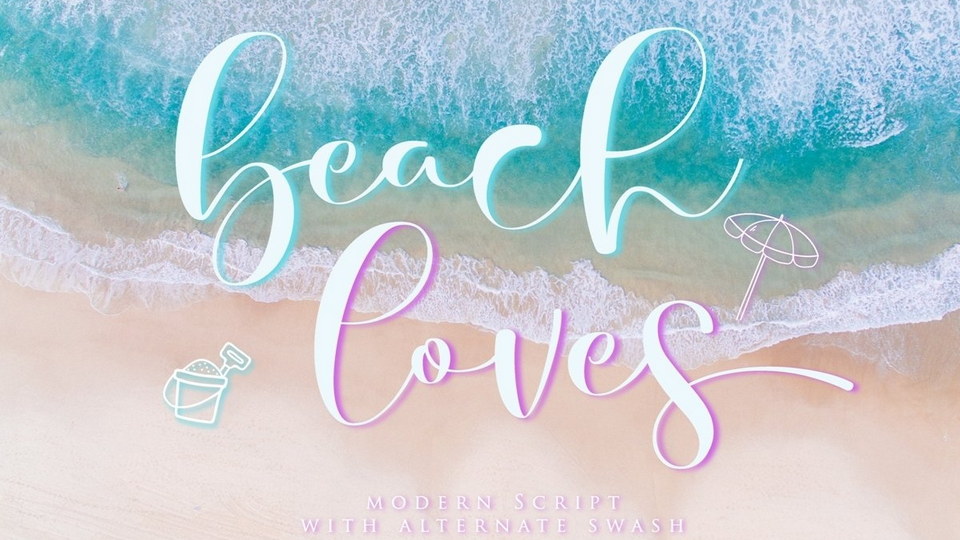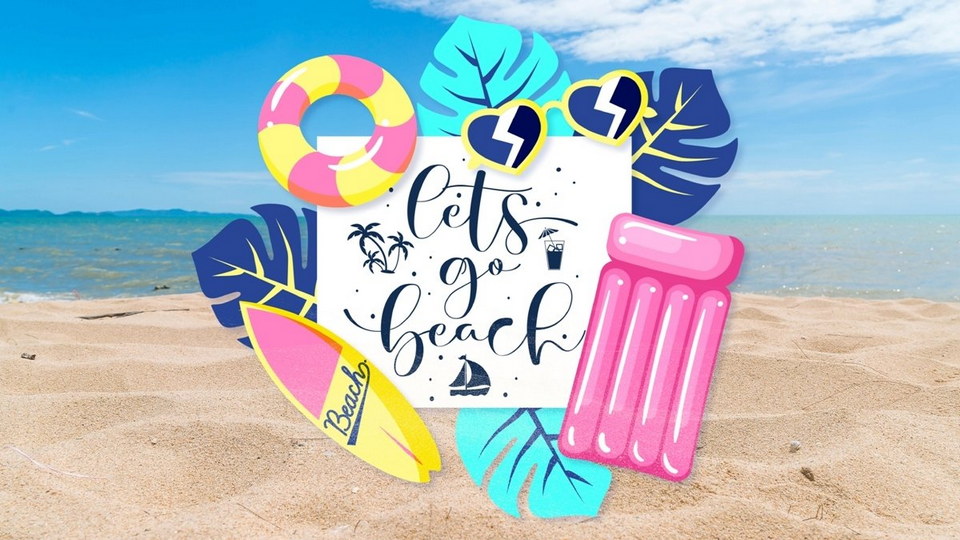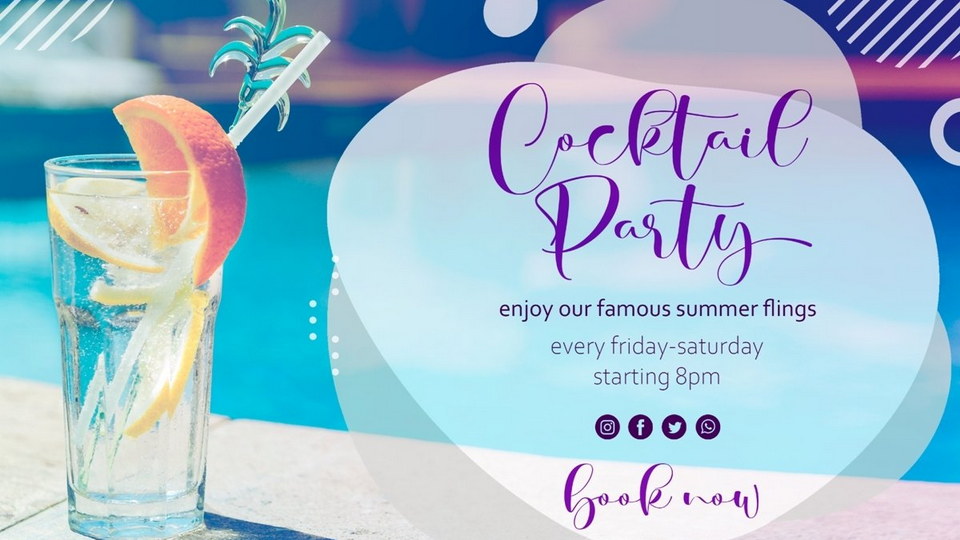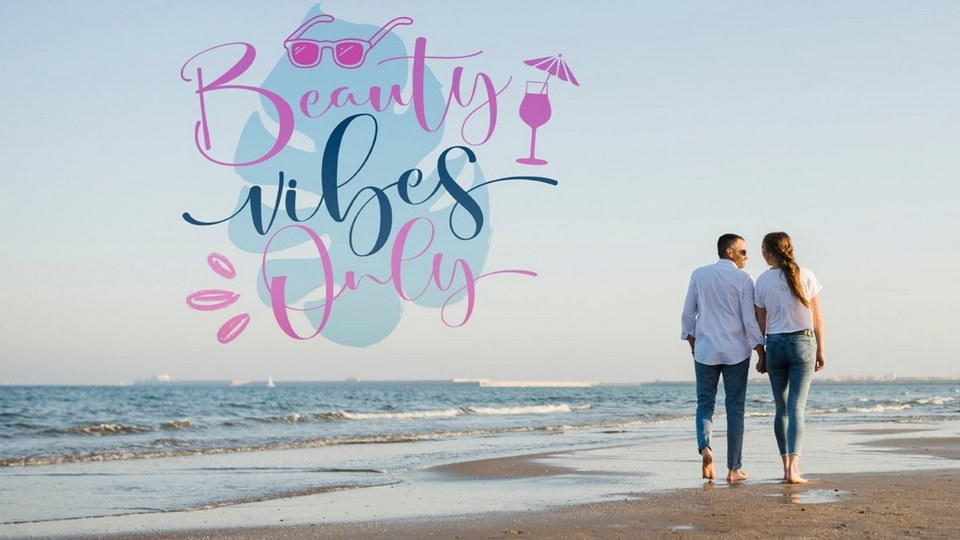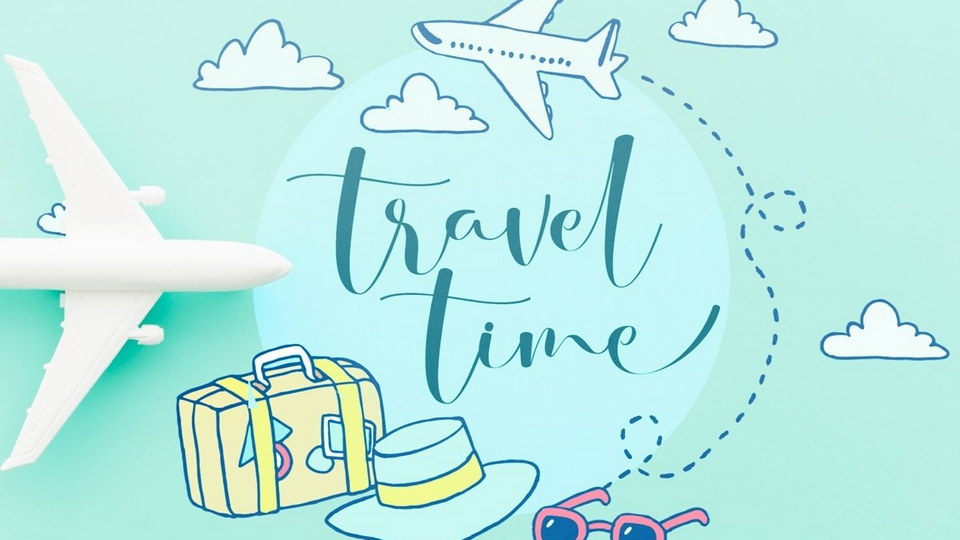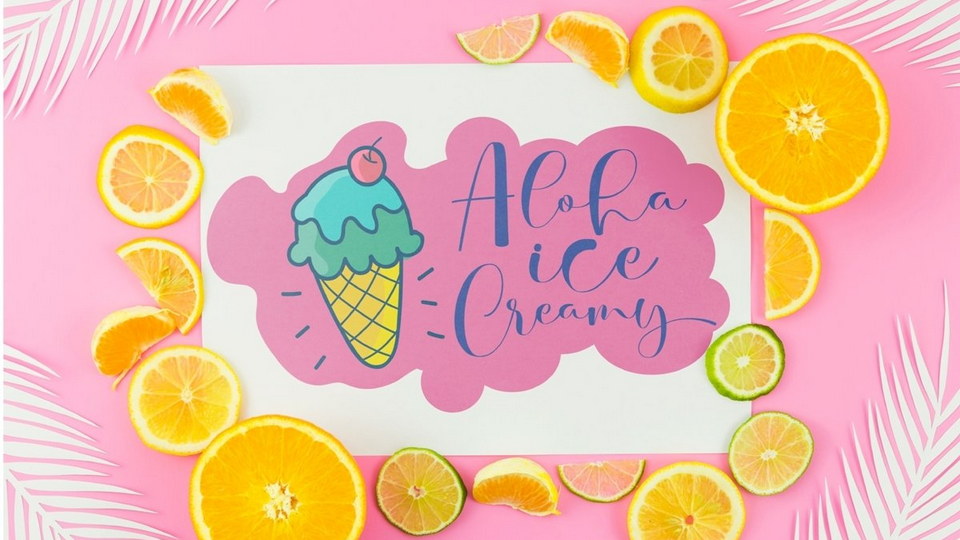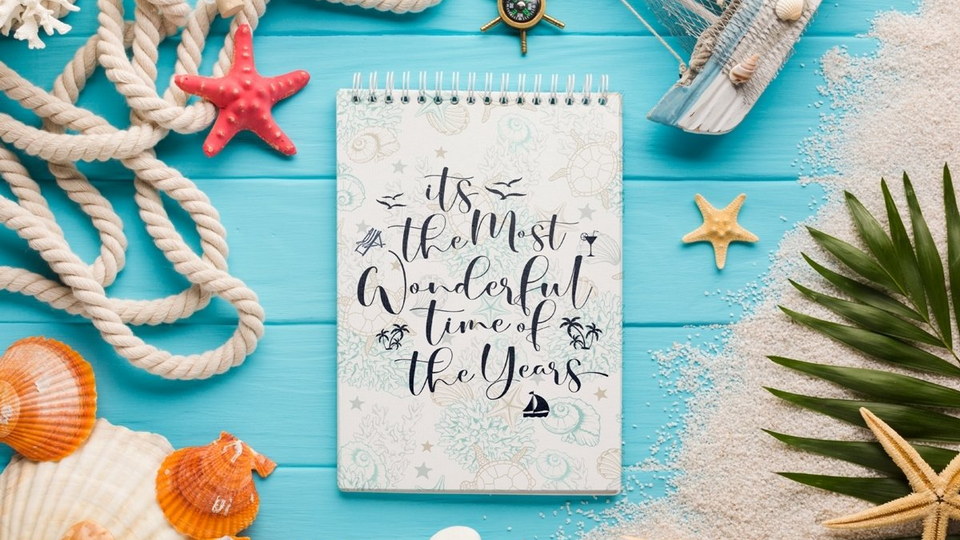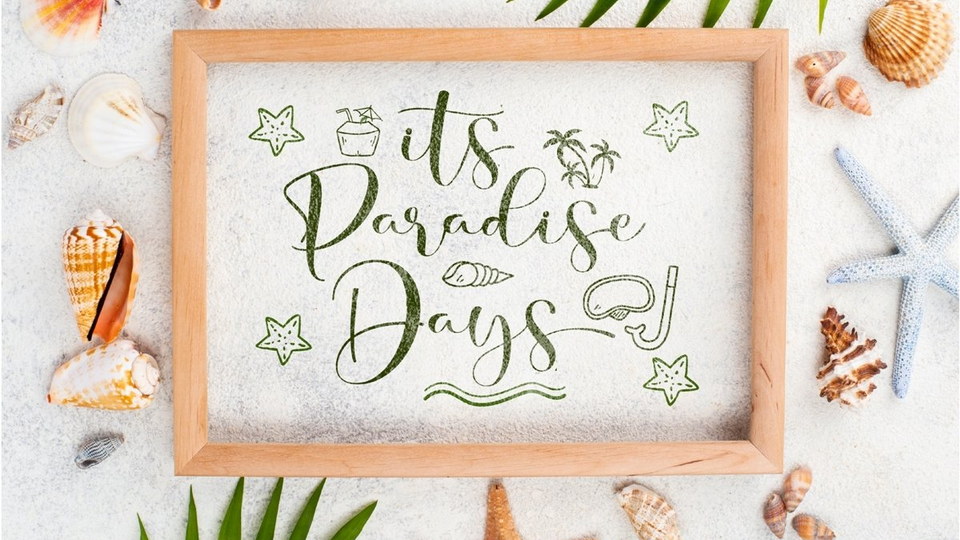
Beach Loves is a beautiful and flowing handwritten font created with love. It looks amazing on a variety of designs requiring a personalized style, such as wedding invitations, party flyers, greeting cards, logos and so on.